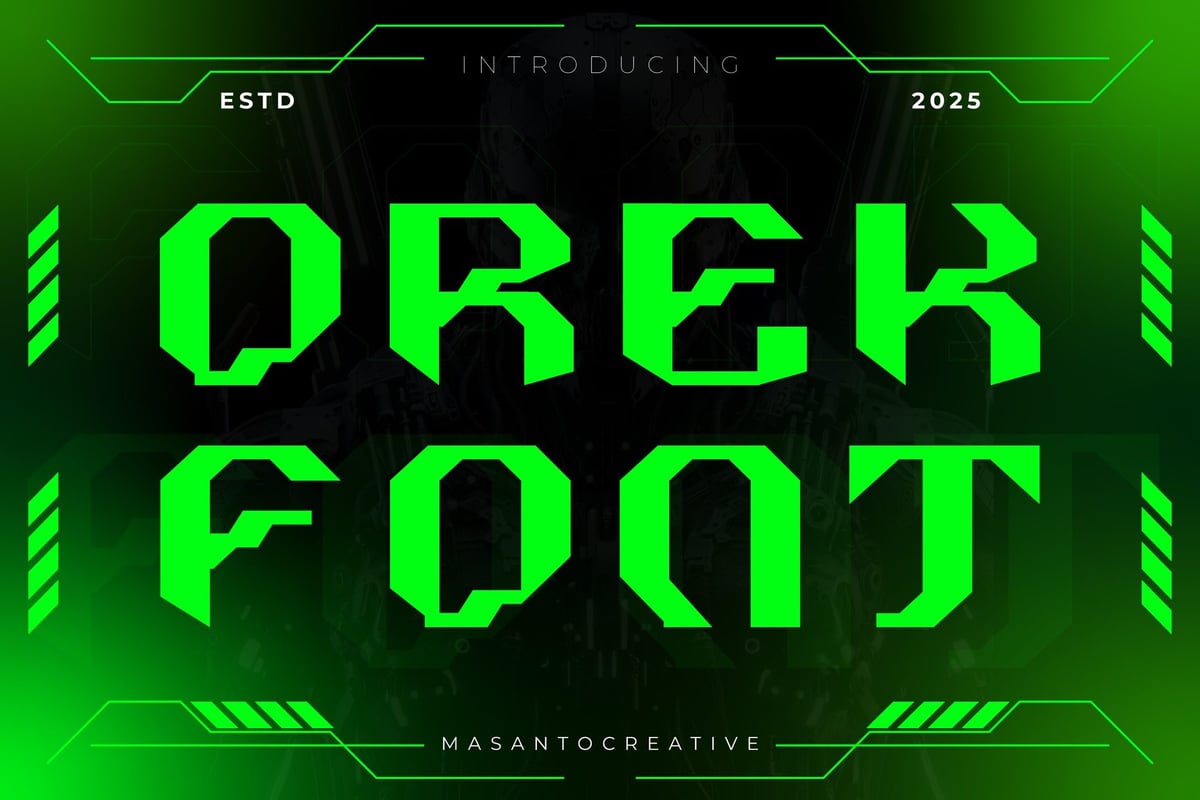
Orek - Modern Futuristic Font
OREK is the bold, razor-edged display font built for designs that live in the future.
Inspired by cyberpunk aesthetics, digital technology, and sci-fi culture, OREK delivers sharp geometric cuts and striking letterforms that command attention instantly. Whether you're designing for gaming, tech, or entertainment, this typeface brings an unmistakable futuristic energy to every project.
OREK works perfectly for:
- Sci-fi posters, titles, and covers
- Esports logos, gaming content, and tech branding
- Movie titles, trailers, and futuristic typography
- Merchandise, apparel, and bold marketing visuals
- Web banners, UI/UX, and digital promotions
Highlights:
- Futuristic & bold display design
- Perfect for tech, esports, and digital branding